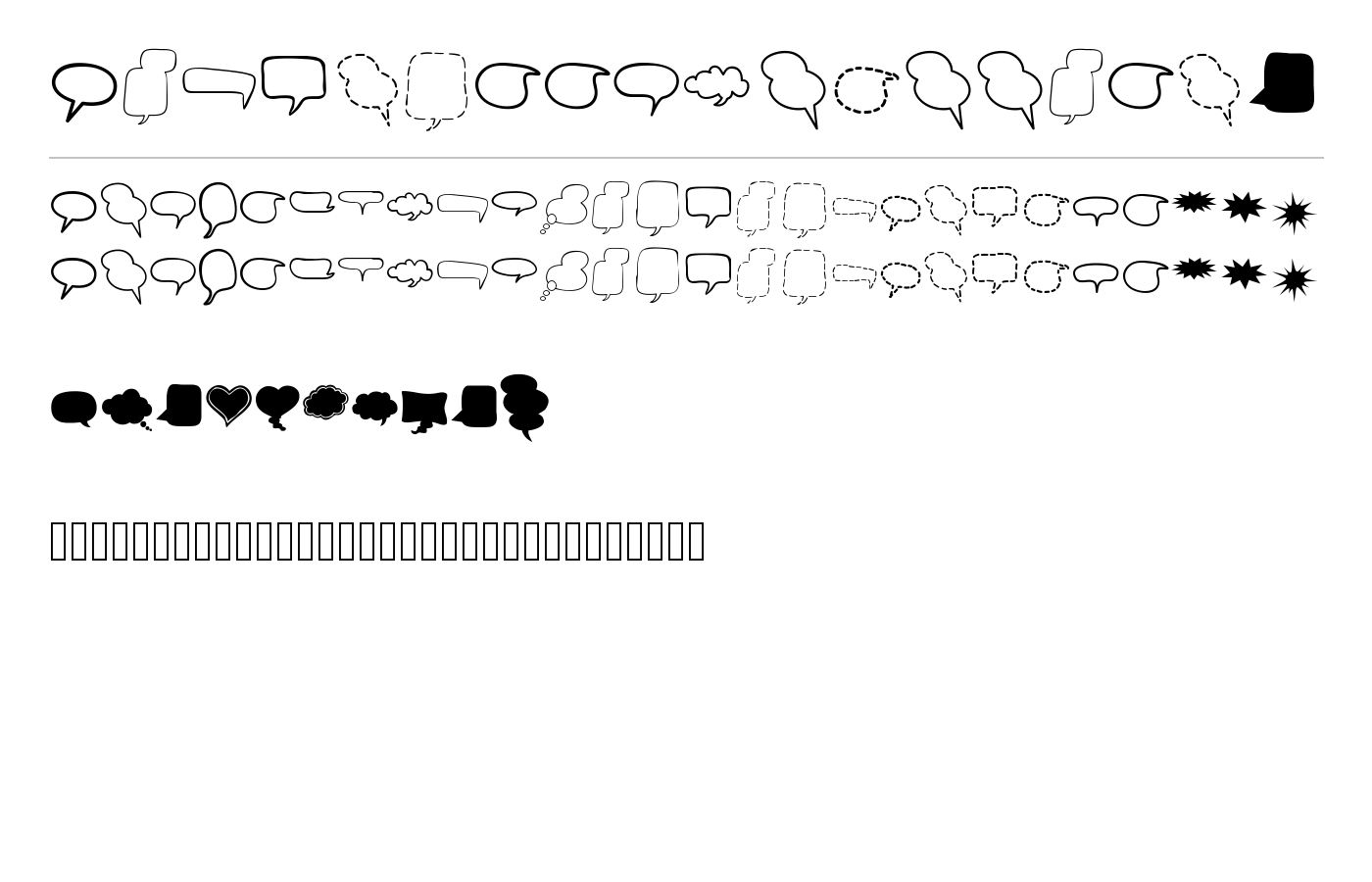
Alin Speech Bubbles 2 is a playful and whimsical dingbat font composed of various speech and thought bubble shapes. Its simple, rounded outlines and solid fills make it perfect for casual and fun graphic projects, adding a comic or conversational feel. This font works well for creative designs like comics, children’s books, and informal branding where lively expression and visual storytelling are key.
Alin Speech Bubbles 2 Font
About Alin Speech Bubbles 2 Font